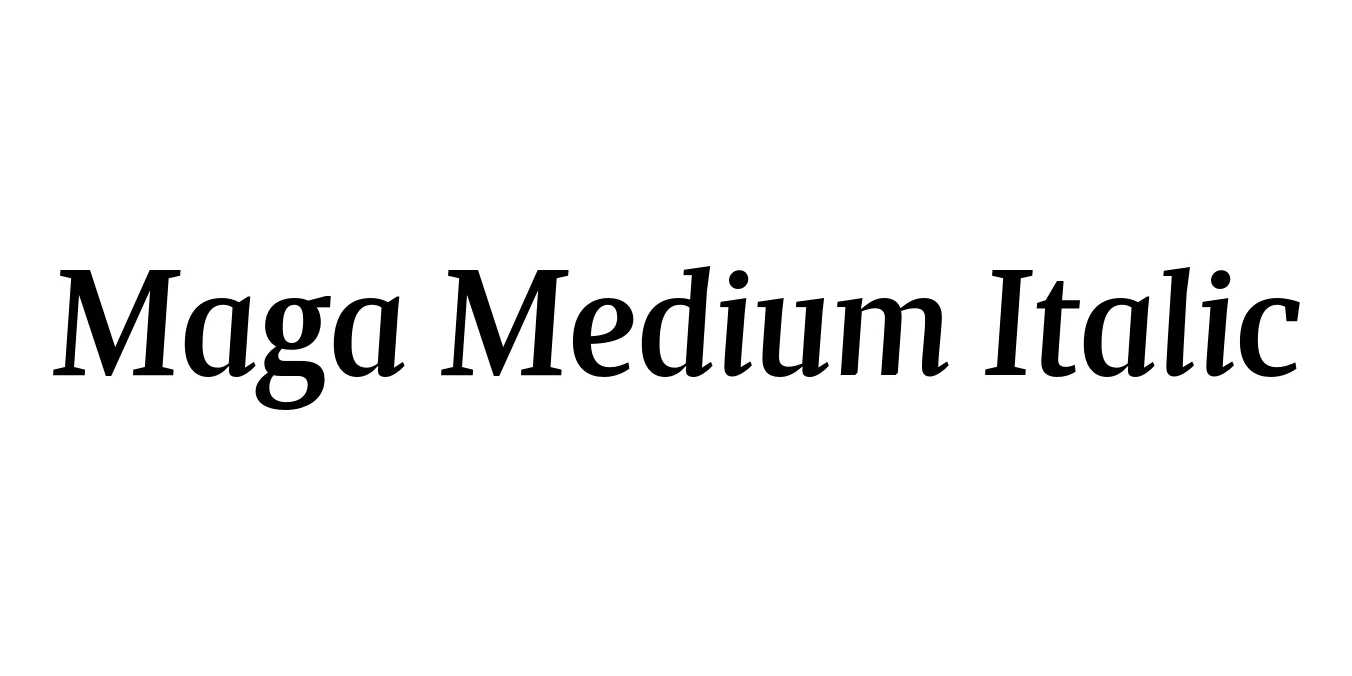
Maga Medium Italic
Designed by Xavier Dupré
Maga Medium Italic is a sophisticated serif typeface designed by the acclaimed French type designer Xavier Dupré and released through the TypeTogether foundry. Originally conceptualized for newspaper and editorial use, Maga bridges the gap between high-contrast elegance and mechanical robustness. The Medium Italic weight features a rhythmic slant with fluid, calligraphic strokes that provide a distinct personality, making it stand out in complex typographic hierarchies.
The font is characterized by its large x-height and open counters, which ensure exceptional legibility even in challenging print environments. The italic variant specifically brings a lively, humanistic touch to the family, making it an excellent choice for pull-quotes, captions, and branding elements that require a balance of authority and grace. Its construction allows it to perform reliably across both digital screens and high-quality paper stock.
Maga Medium Italic Best Uses
Exceptional for magazine layouts, journals, and long-form journalistic storytelling.
Provides a sophisticated and established feel for corporate logos and stationery.
Highly legible for emphasized text and stylish subheadings on professional websites.
Effective for high-end luxury marketing and print advertisements.